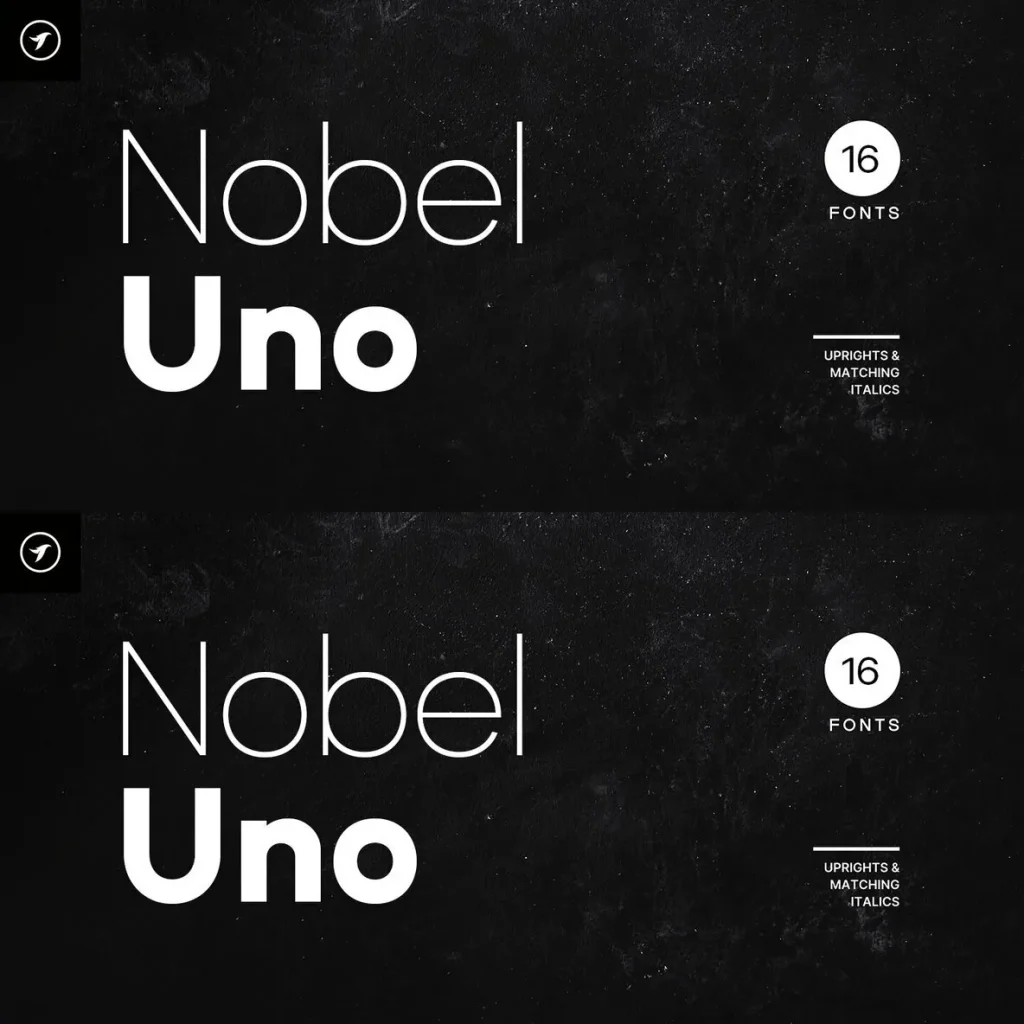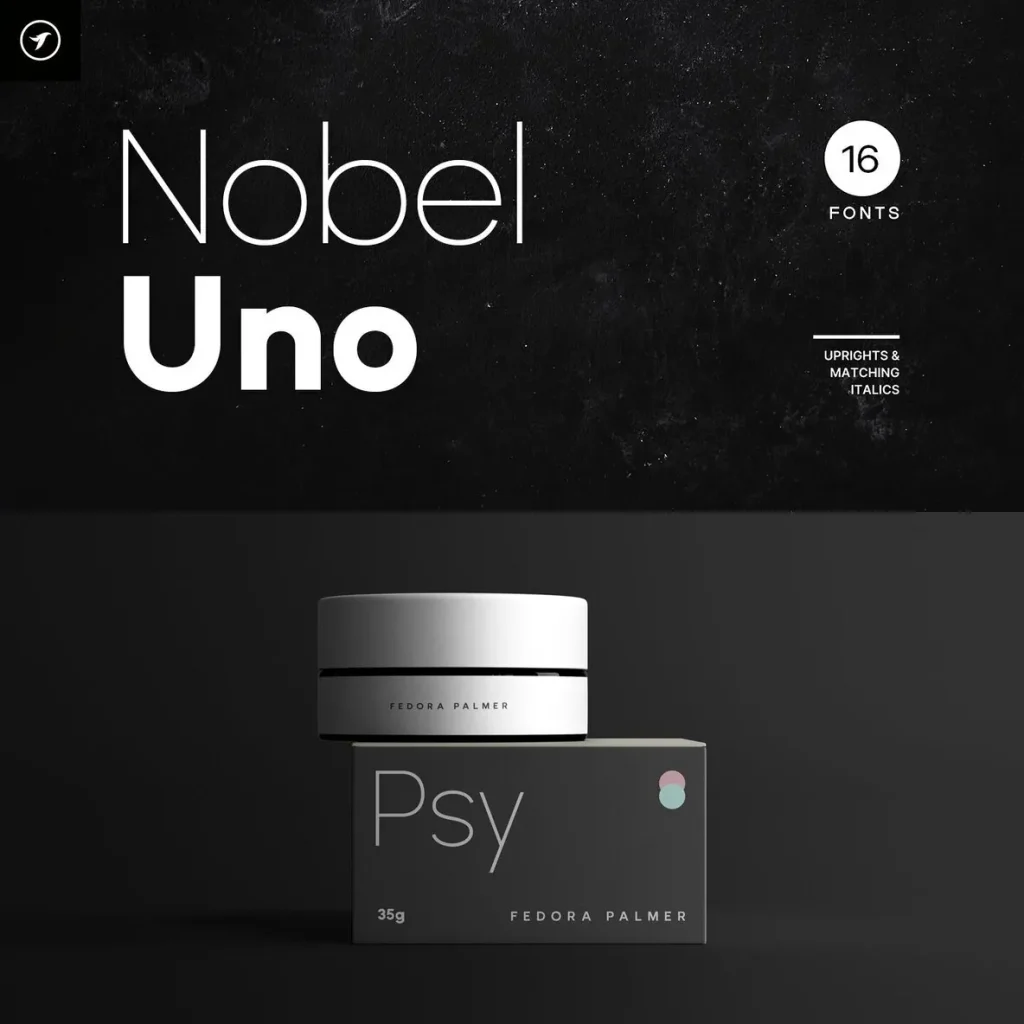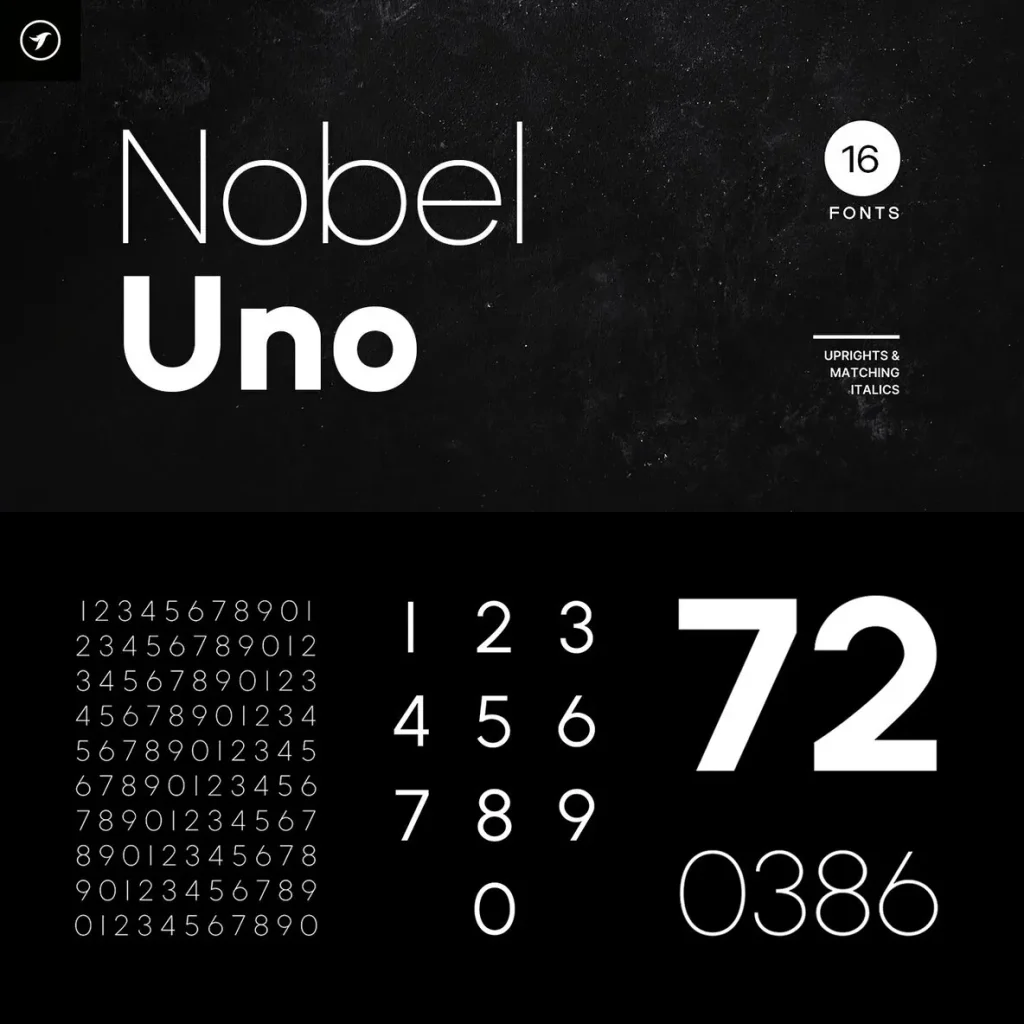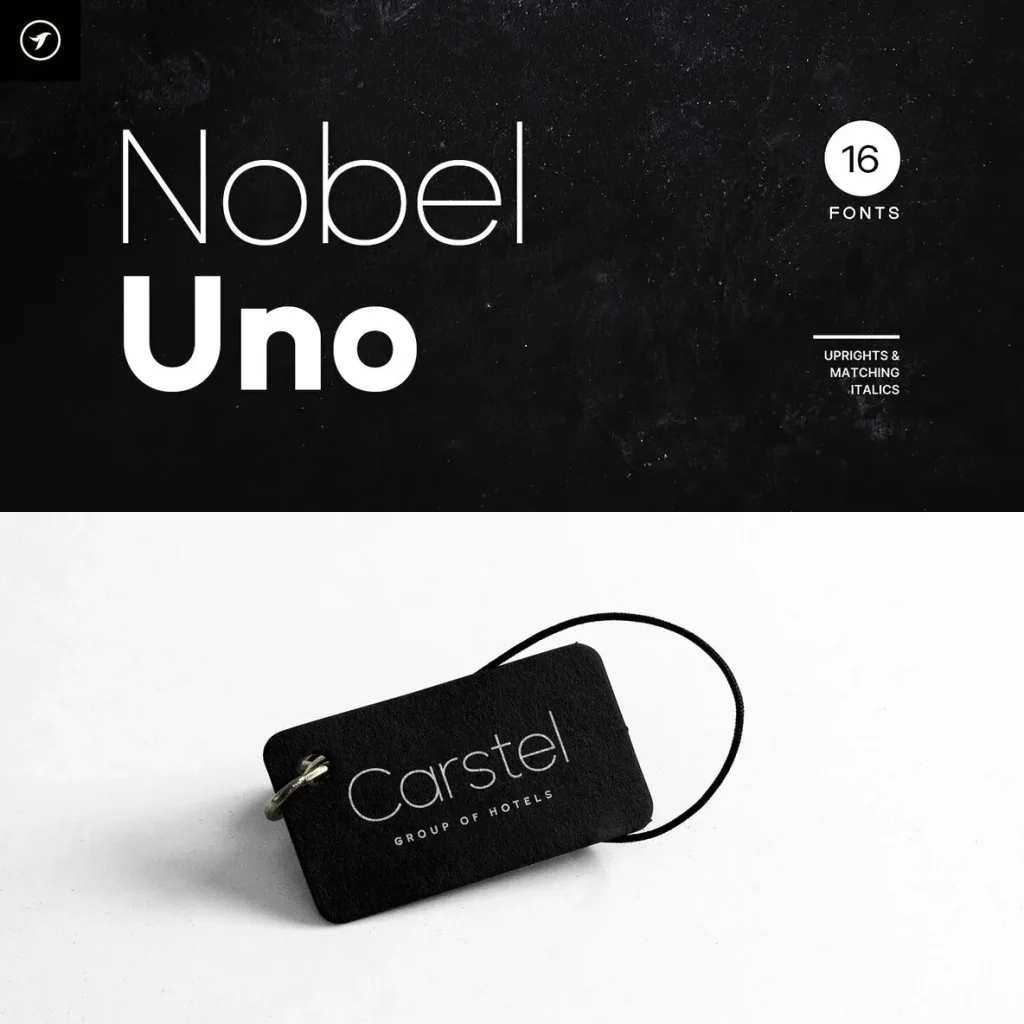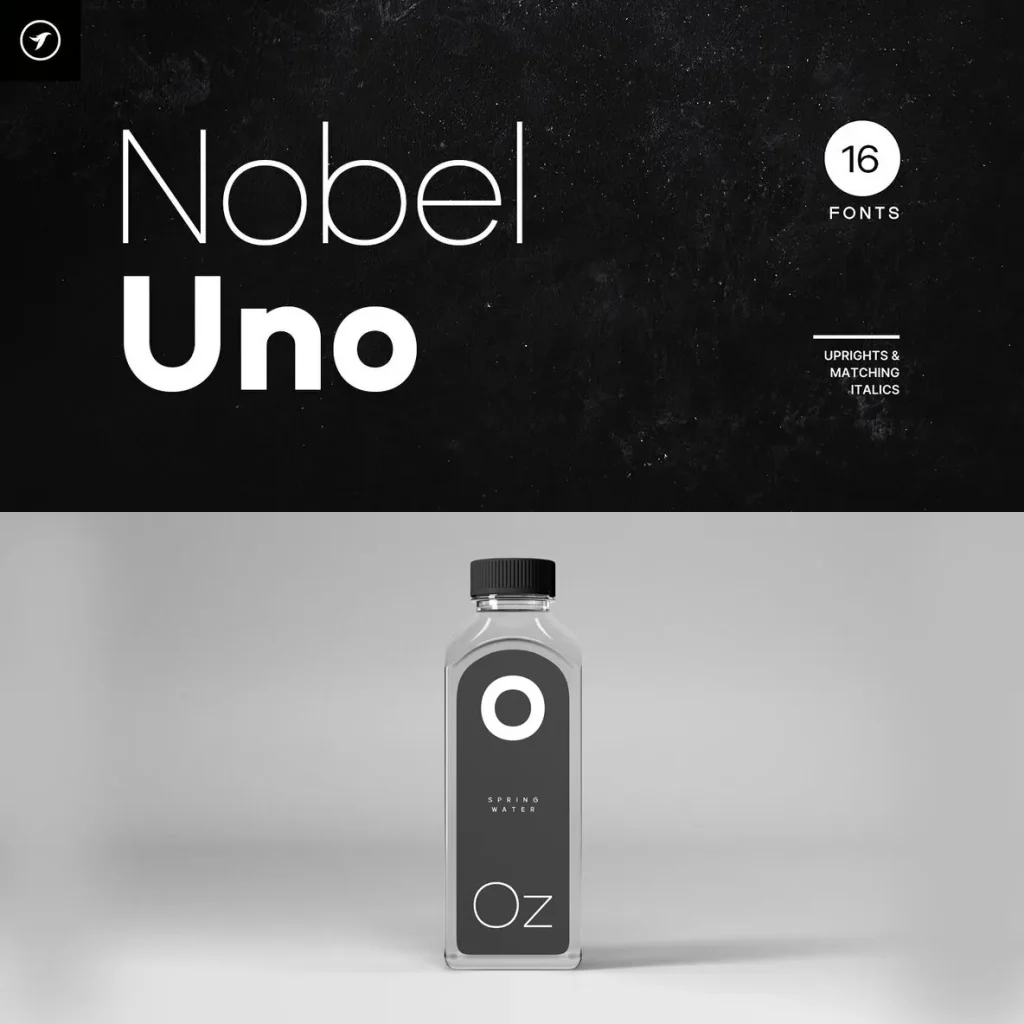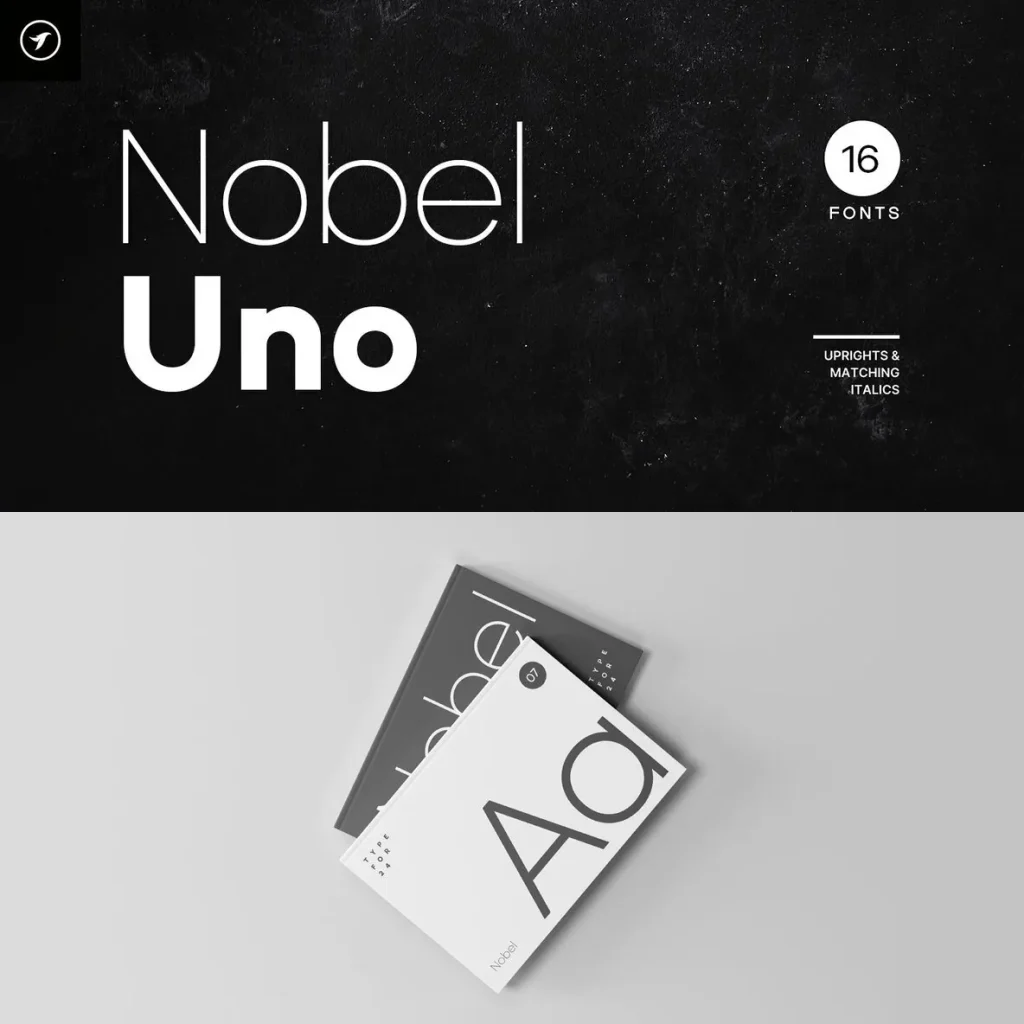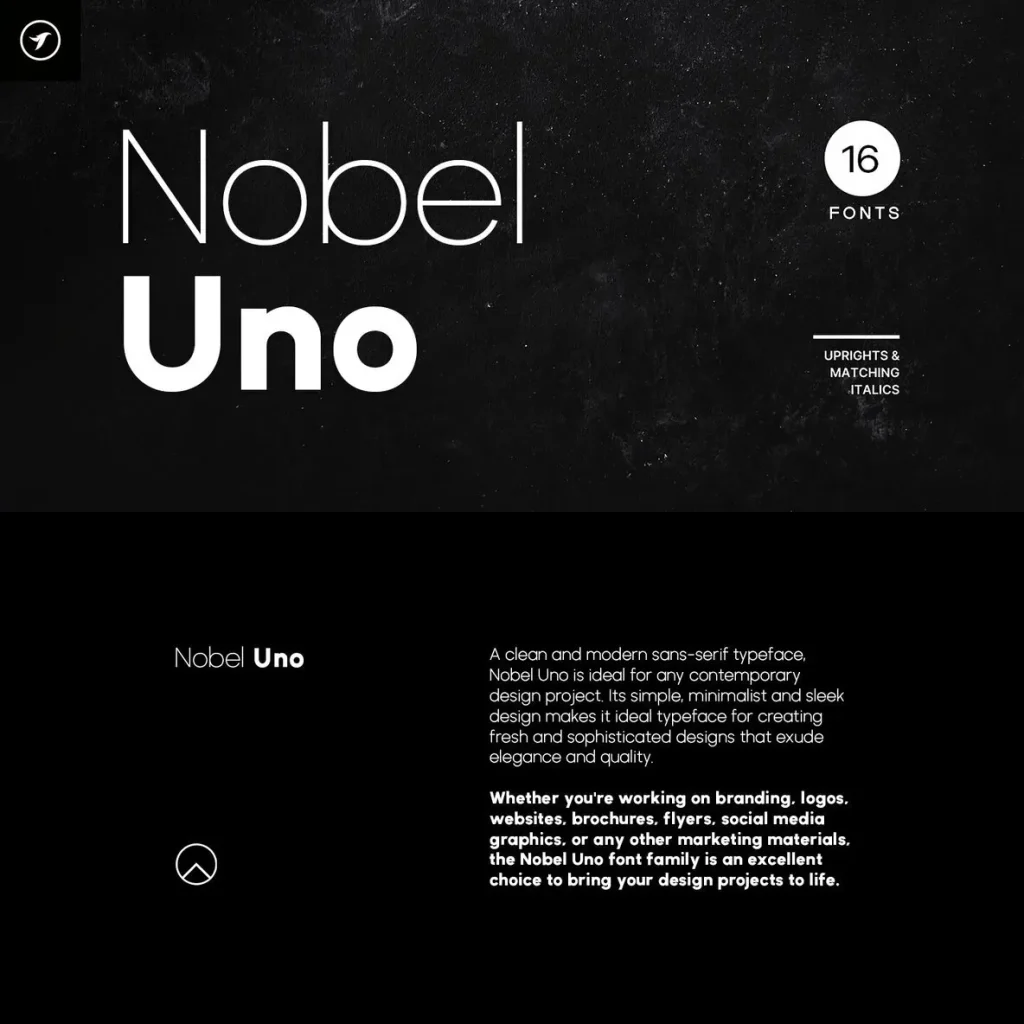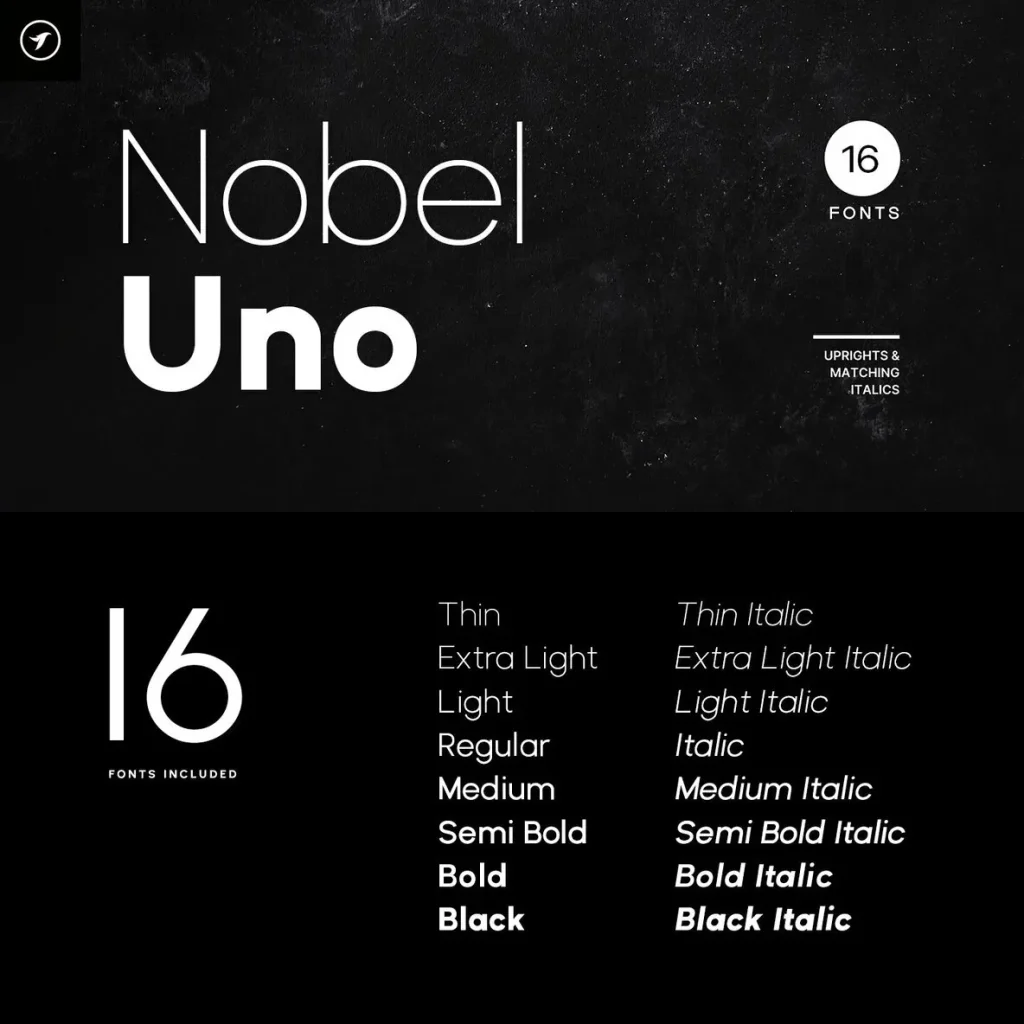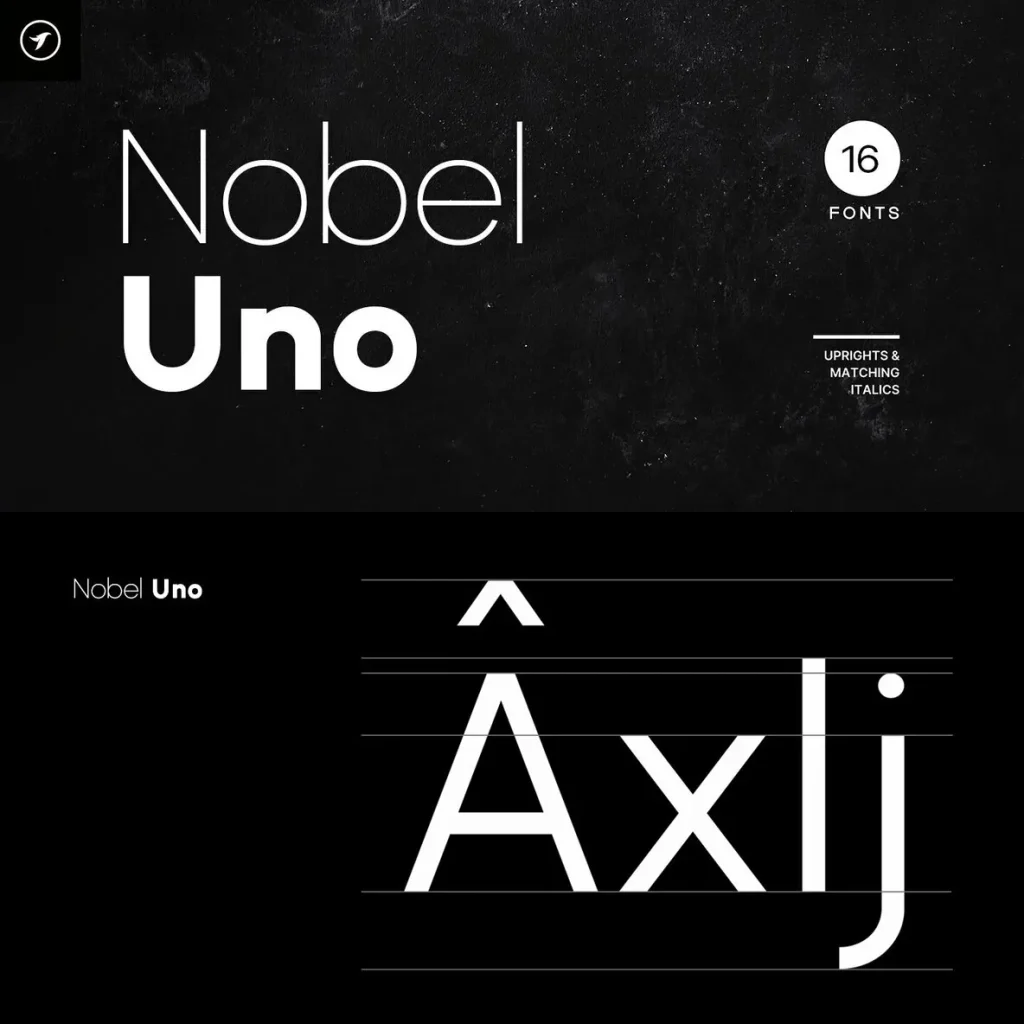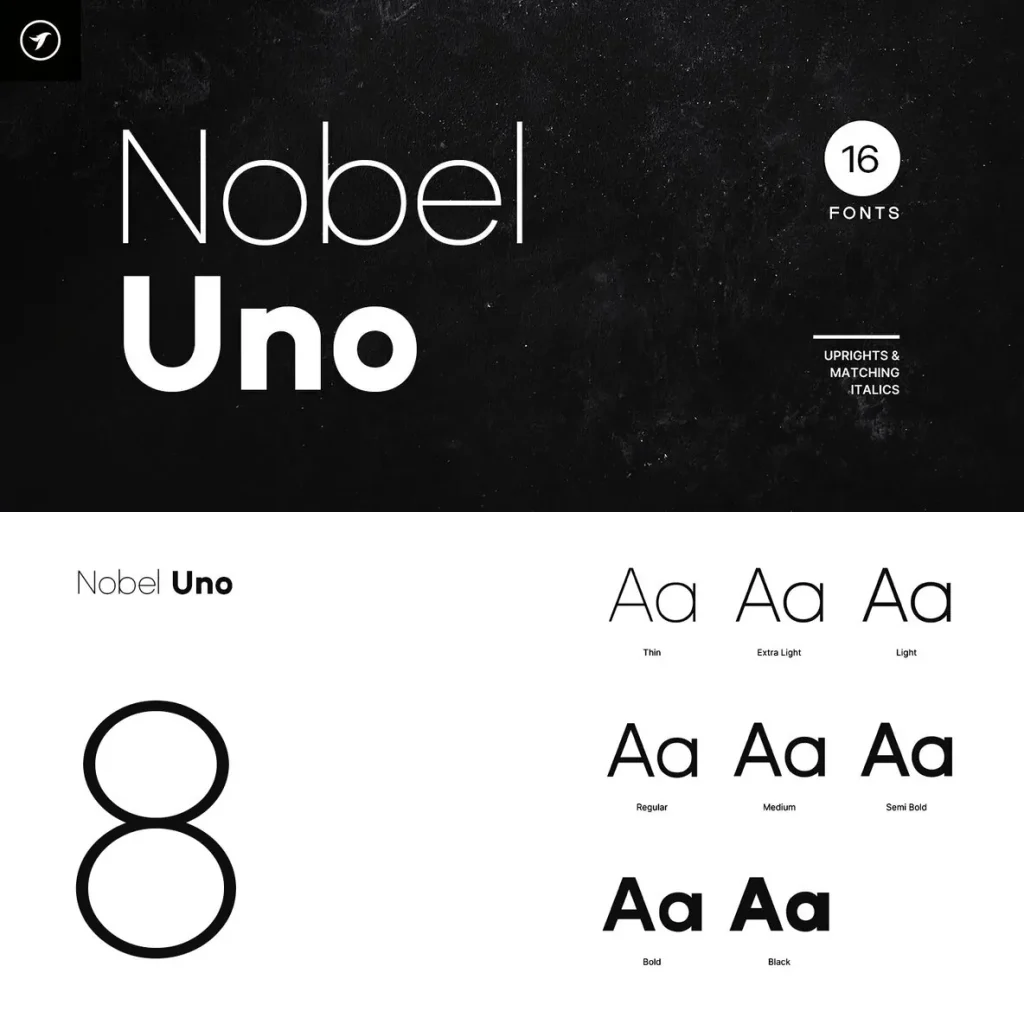
Nobel Uno Font
Nobel Uno — Precision in Quiet Form
Nobel Uno is a modern sans-serif typeface family designed around precision, simplicity, and timeless visual clarity. Its refined proportions and clean letterforms give it a calm, professional presence, making it well suited to contemporary communication across both print and digital settings.
Built with a versatile structure, Nobel Uno supports branding, editorial design, digital interfaces, packaging, and sophisticated visual identities. The family offers a clear typographic voice for projects that need restraint, consistency, and a polished modern sans-serif character without unnecessary visual noise.